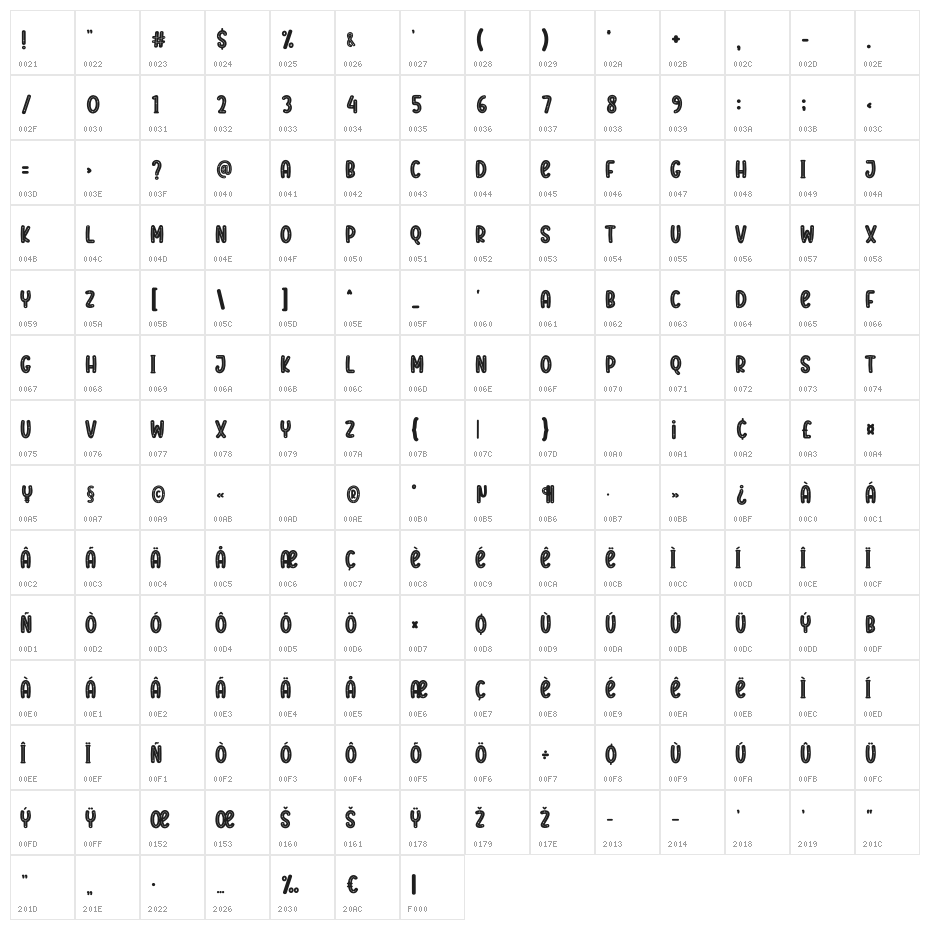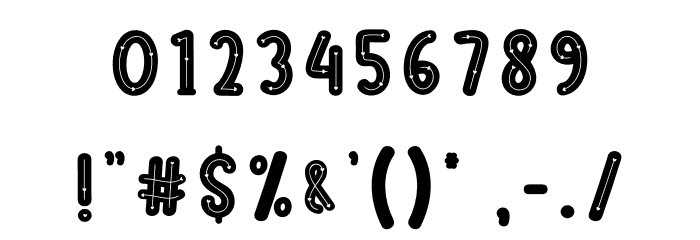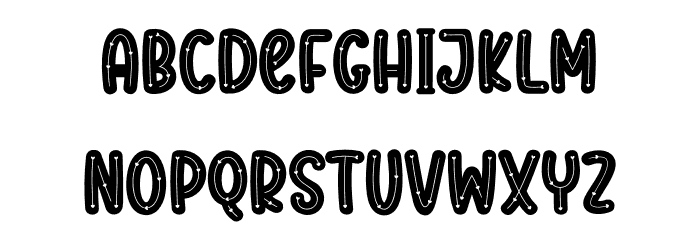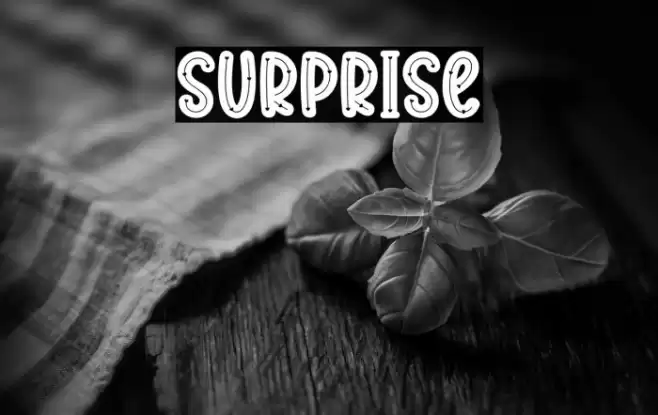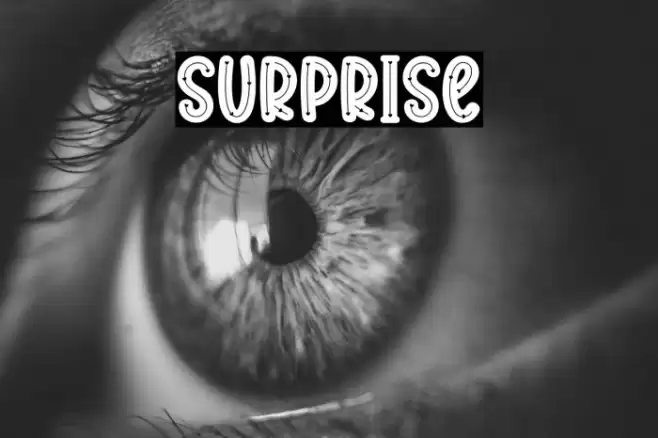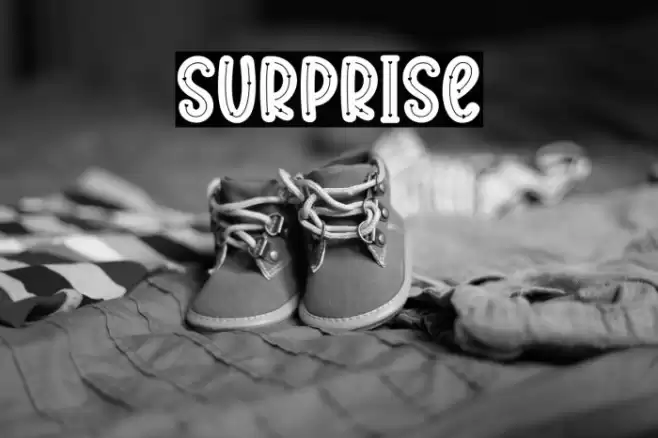
Surprise Font
Surprise Description
This font features a playful and bold design with thick, rounded strokes that create a sense of fun and energy. The letters are outlined, giving them a three-dimensional appearance that stands out. The uppercase and lowercase characters maintain a consistent style, with a slight variation in size and shape. Numbers and special characters follow the same design principles, ensuring a cohesive look across all text elements. The font's boldness and unique style make it ideal for attention-grabbing designs.
| Overall Style | Playful, Fun |
| Proposed Projects | Ideal for children's books, playful branding, posters, and event invitations. |